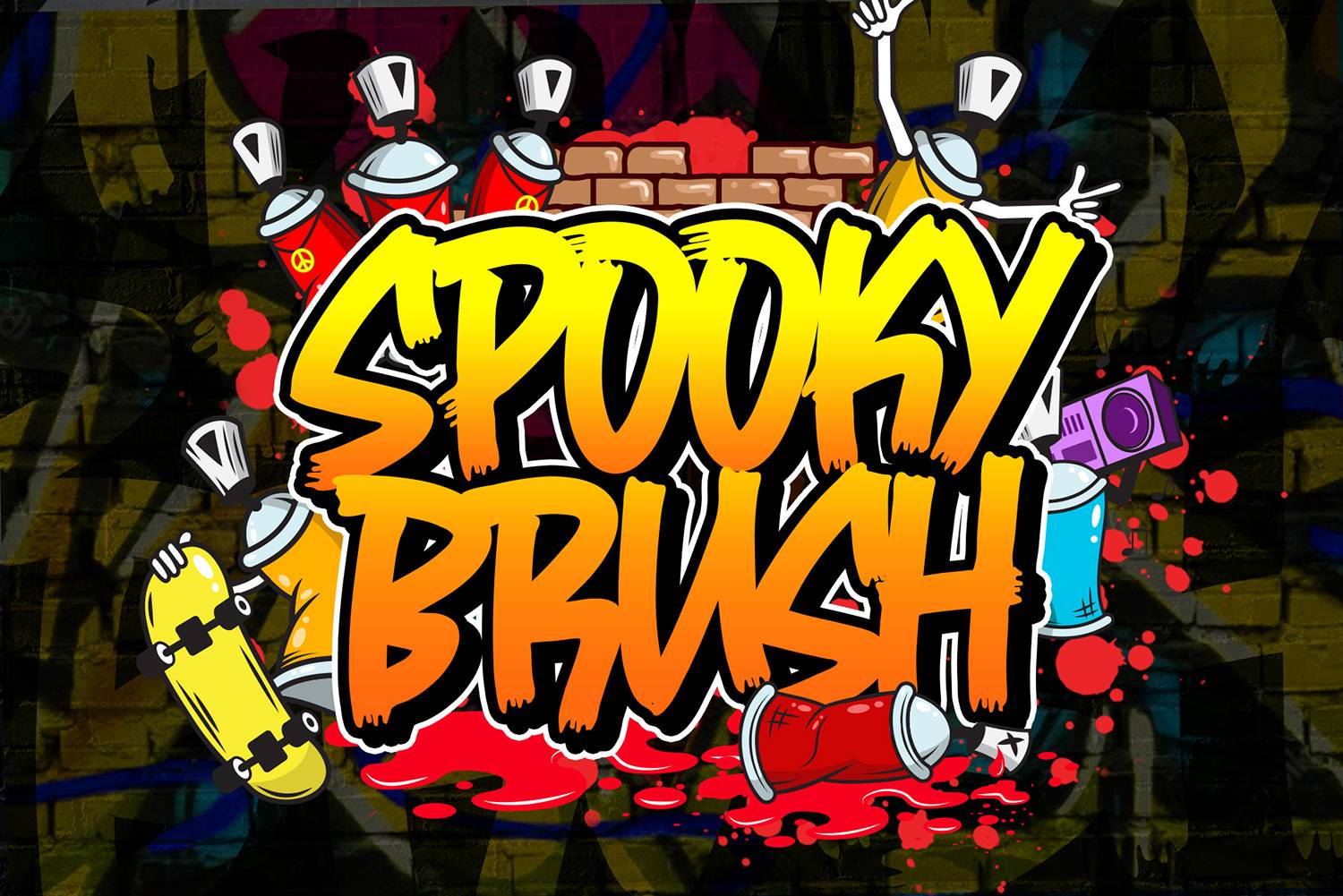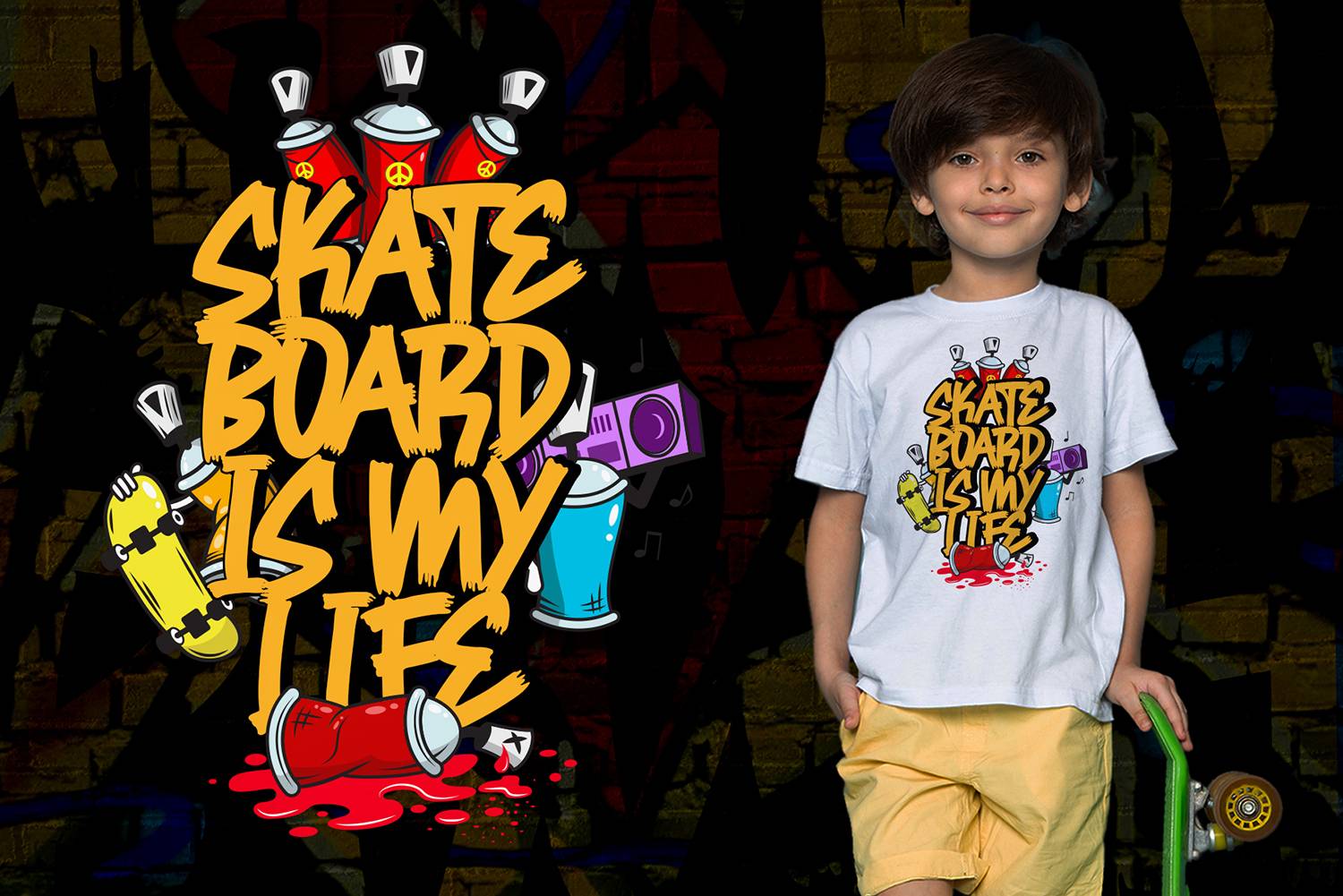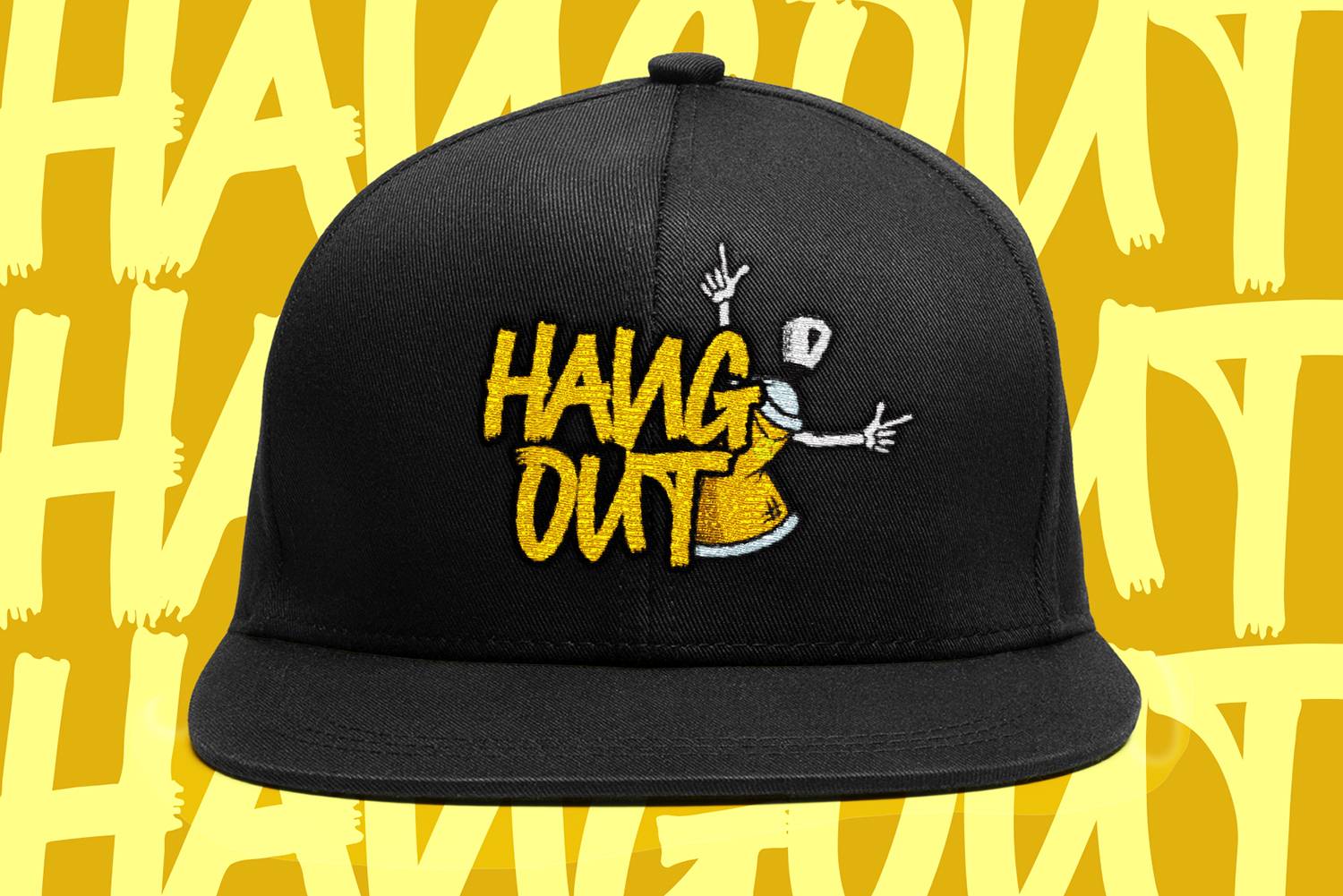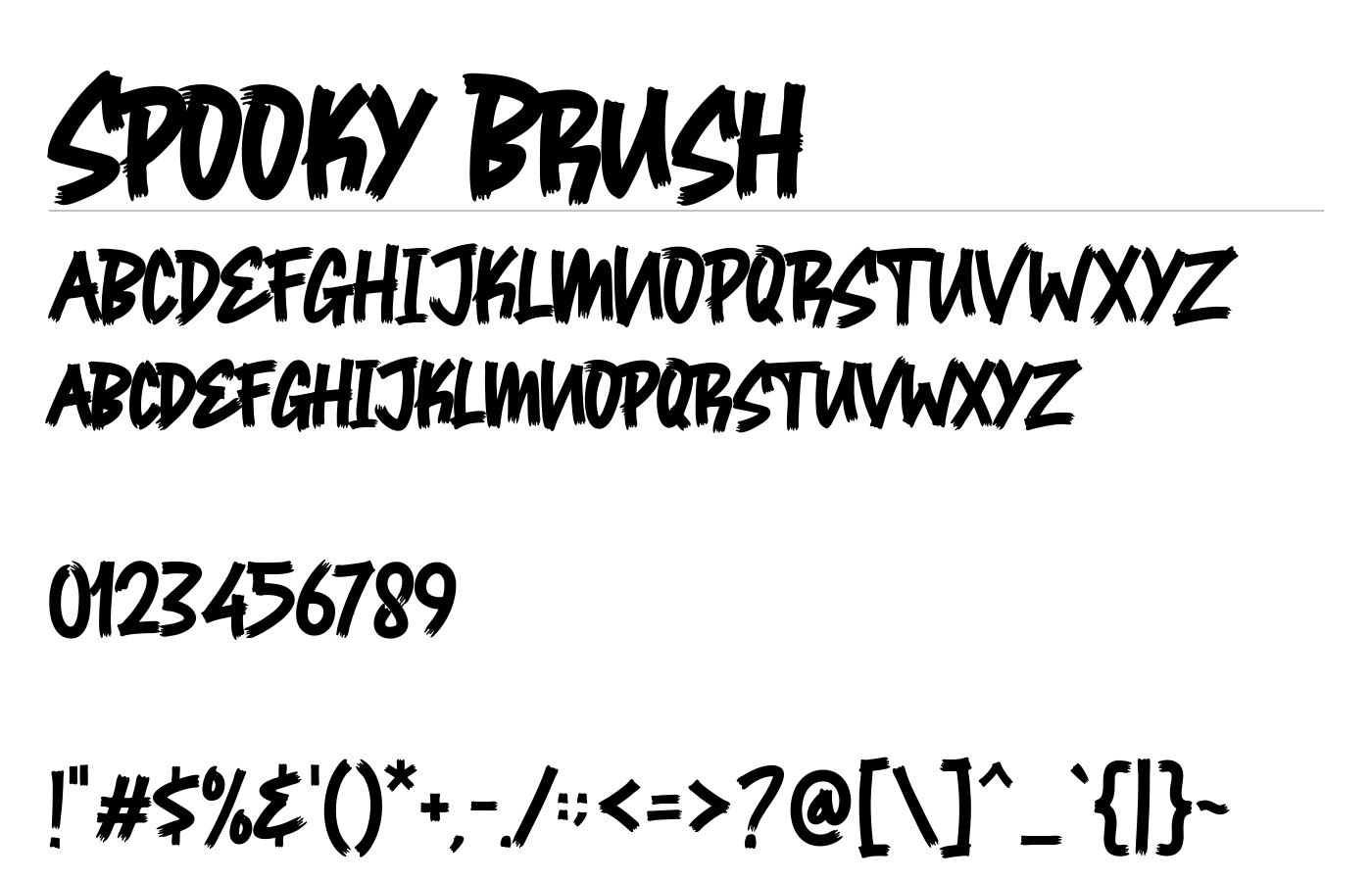
Spooky Brush is a bold, hand-painted brush font with a playful yet eerie vibe, featuring rough, dynamic strokes that create a sense of movement and texture. Its uppercase-only style with irregular edges and casual letterforms makes it perfect for Halloween-themed designs, party invites, or any project seeking a fun, spooky atmosphere. This font works best in headlines, logos, and posters where its energetic character can stand out and grab attention.
Spooky Brush Font
About Spooky Brush Font